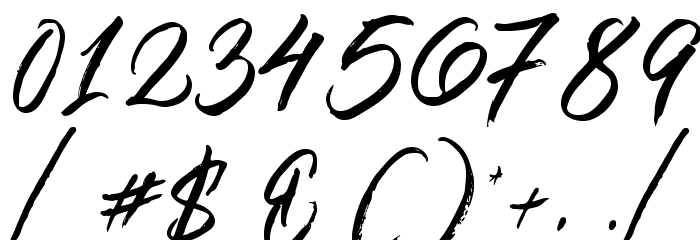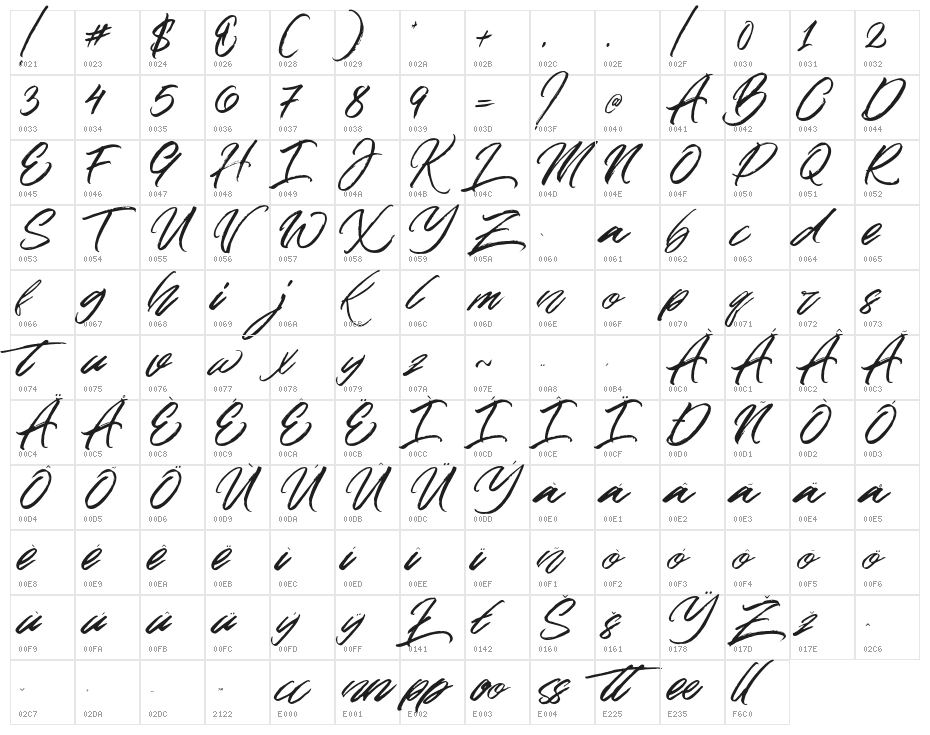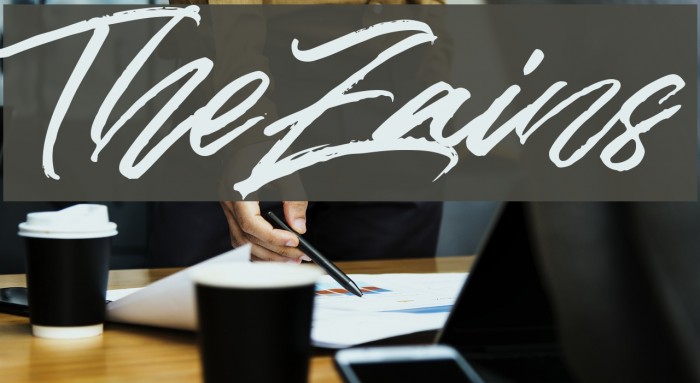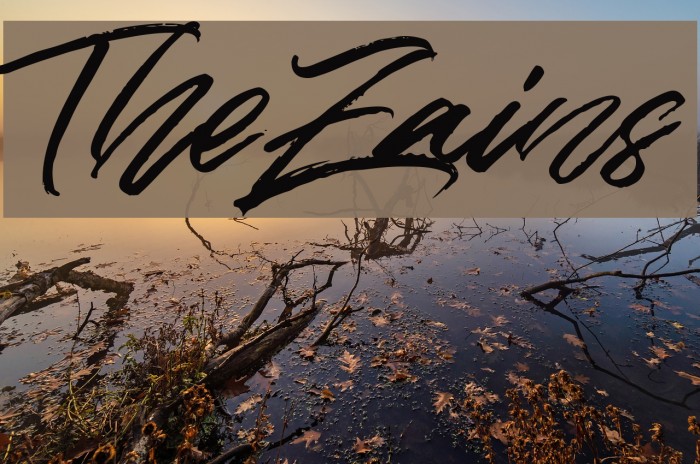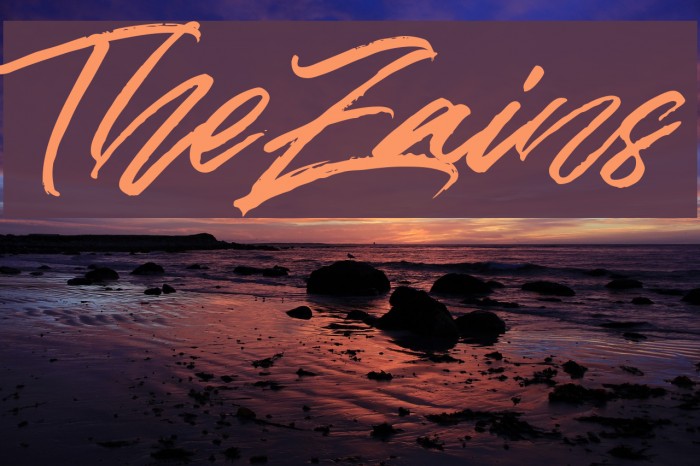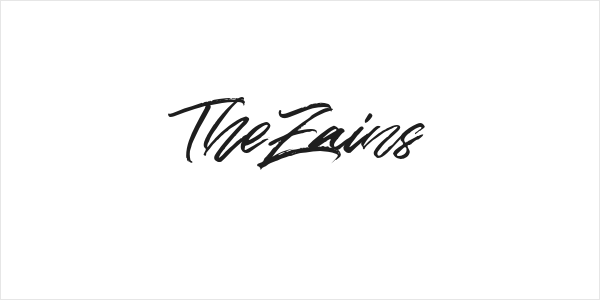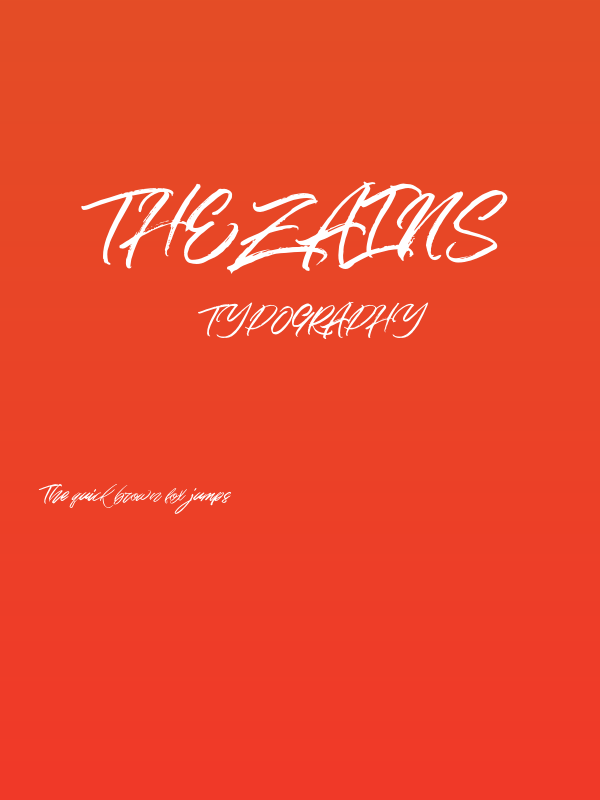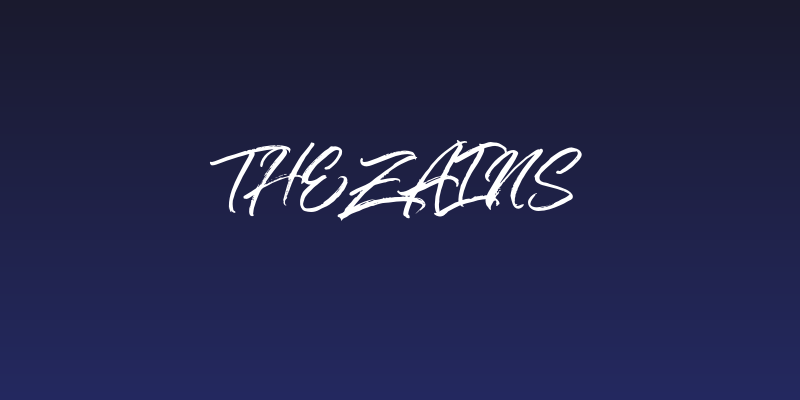
TheZains Font
TheZains Description
This font exudes a dynamic and expressive style, characterized by its fluid, cursive script that mimics the natural flow of handwriting. The strokes are bold and confident, with a noticeable variation in thickness that adds a sense of movement and energy. Each letter is distinct yet harmoniously connected, creating a cohesive and artistic appearance. The uppercase letters are slightly more structured, while the lowercase letters exhibit a more playful and freeform design. The numerals and special characters maintain the same lively aesthetic, ensuring consistency throughout the typeface. This font is ideal for projects that require a personal touch or an artistic flair, making it suitable for invitations, branding, and creative designs.
| Use Case | Logos, Headlines, Artistic designs |
| Proposed Projects | Ideal for invitations, branding, artistic designs, and any project needing a personal, creative touch. |